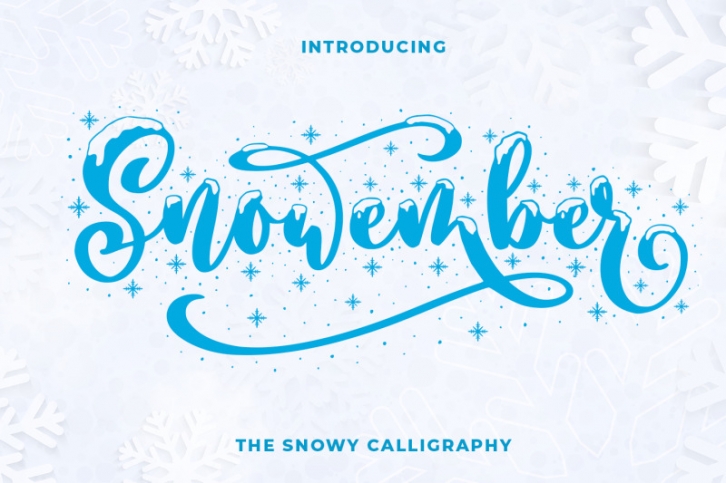
introducing
SNOWEMBER
- the snowy calligraphy -
SNOWEMBER is a carefully stunning modern calligraphy with snowy effect. It is great for titling, headline, logo, t-shirt designs, mugs, tote bag designs, cards, banners, social media, and anything of craft projects.
- Alternates